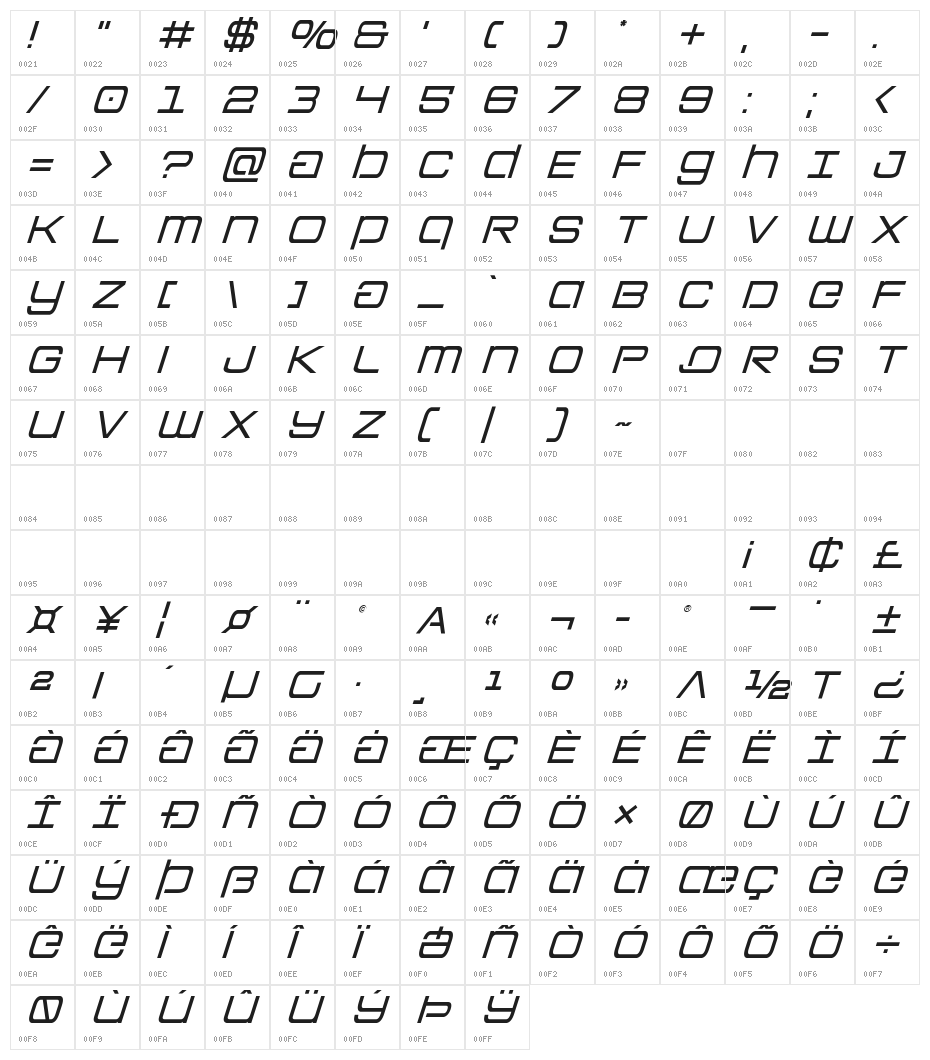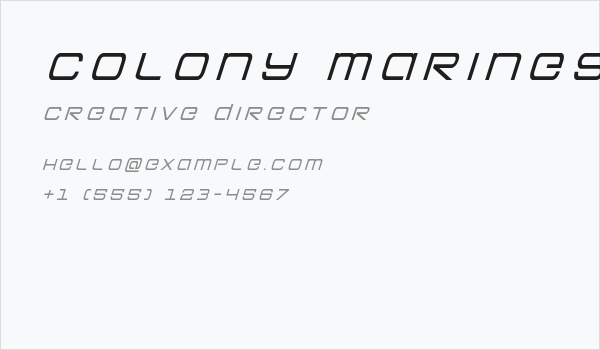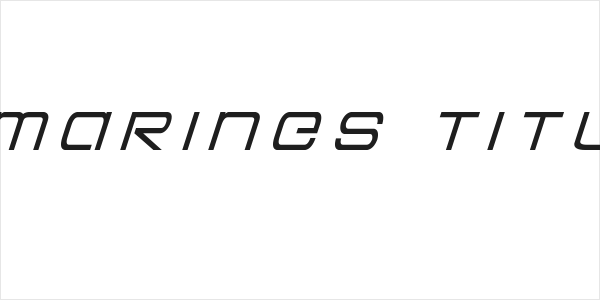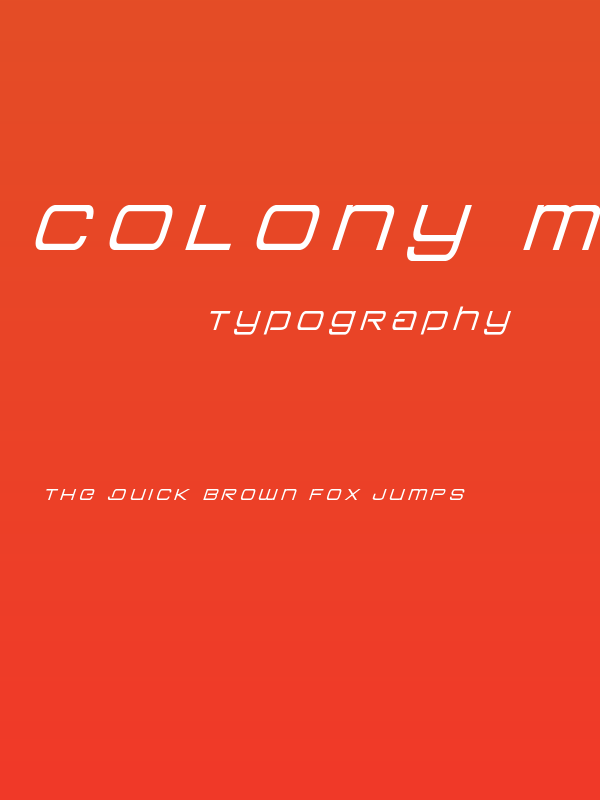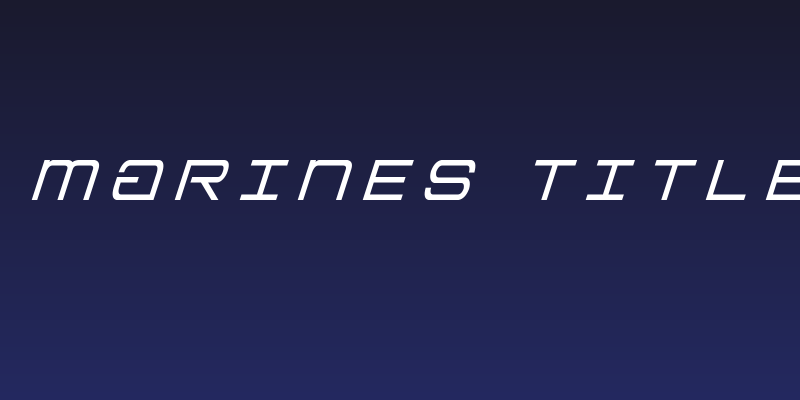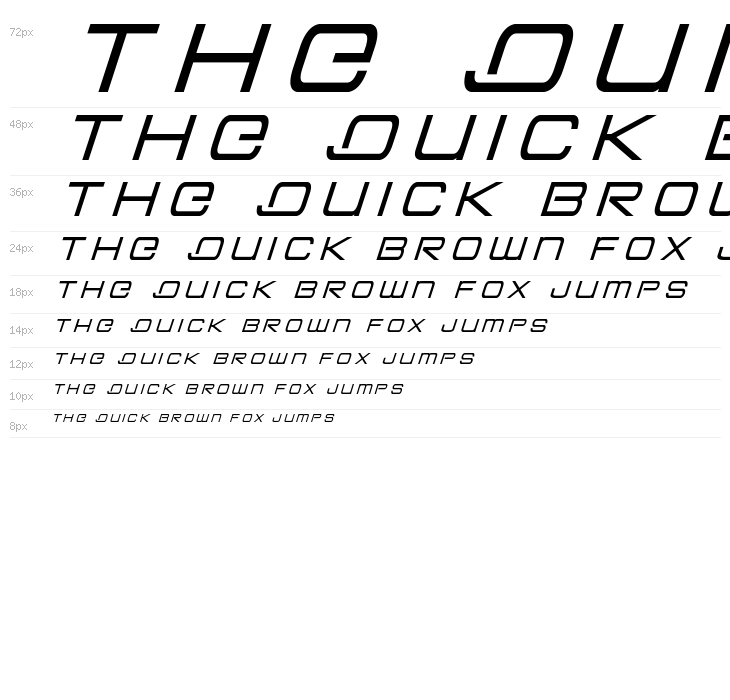
Colony Marines Title Italic Font
Colony Marines Title Italic Description
This font features a futuristic and sleek design with a distinct italic slant, giving it a dynamic and forward-moving appearance. The characters are constructed with a geometric precision, incorporating sharp angles and clean lines that contribute to its modern aesthetic. The uppercase and lowercase letters maintain a consistent style, with a uniform height that enhances readability. Numbers and special characters are designed to match the overall theme, ensuring a cohesive look across all elements. The font's unique style makes it suitable for projects that require a contemporary and innovative touch.
| Use Case | Headlines, Logos, Titles |
| Proposed Projects | Ideal for technology branding, sci-fi movie titles, video game interfaces, and modern advertising campaigns. |